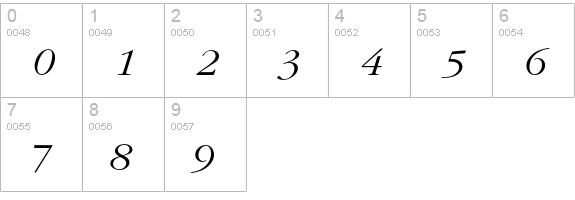
Gatineau Italic Font Details
Gatineau Italic is a distinctive, italic variant in the Gatineau typeface family \xE2\x80\x94 well suited to design and typography projects.
Gatineau Italic font exudes elegance and sophistication with its sleek and modern design. The flowing curves and sharp edges of this typeface create a perfect balance between traditional and contemporary styles, making it versatile for a wide range of design projects. Whether used for branding, editorial design, or web content, Gatineau Italic adds a touch of refinement to any project. What sets Gatineau Italic apart is not only its striking appearance but also its accessibility. This high-quality font is available for free download exclusively at FontsMarket.com, allowing designers and creators to elevate their work without any cost barriers. With its smooth lines and subtle flair, Gatineau Italic is sure to make a lasting impression on any audience.